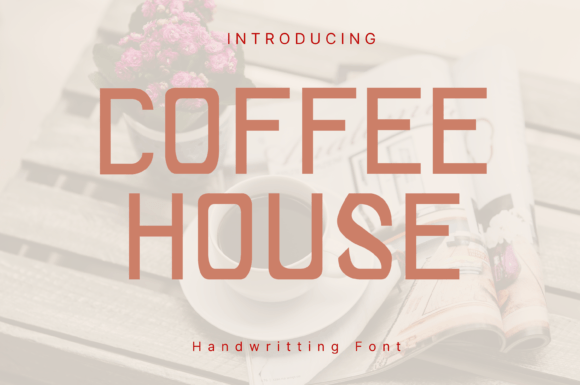
Coffee House Font: A Font that Speaks Volumes
Welcome to the realm of typography, where letters dance and stories unfold, where the right font can evoke emotions, set the tone, and make a statement. Coffee House Font, a creation of AchiArt, is not just a collection of glyphs; it's an artistic expression, a gateway to a world of creativity and endless possibilities.
With its sans serif charm and whimsical aura, Coffee House Font is a font that speaks volumes. Its clean lines and playful curves bring a touch of elegance and sophistication to any project, making it the perfect choice for those seeking a font that can elevate their designs.
Coffee House Font is more than just aesthetically pleasing; it's versatile enough to adapt to a wide range of projects. Whether you're crafting logos, designing brochures, creating eye-catching social media posts, or writing academic papers, Coffee House Font will seamlessly blend with your vision, adding a touch of magic to your words.
But what makes Coffee House Font truly special is its ability to evoke emotions. Its friendly, approachable nature invites readers to immerse themselves in your content, creating a connection that goes beyond the written word. With Coffee House Font, your words will dance off the page, capturing attention and leaving a lasting impression.